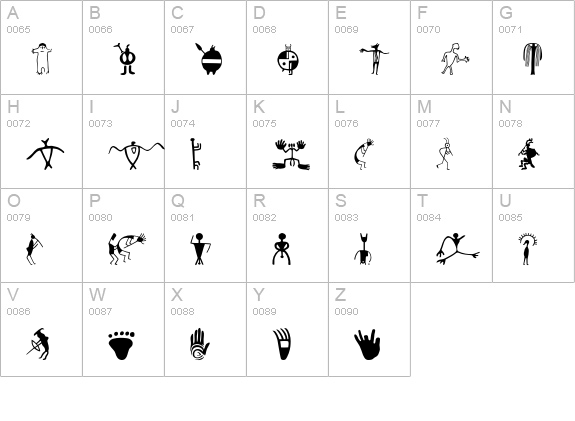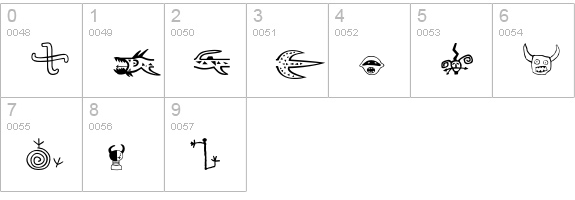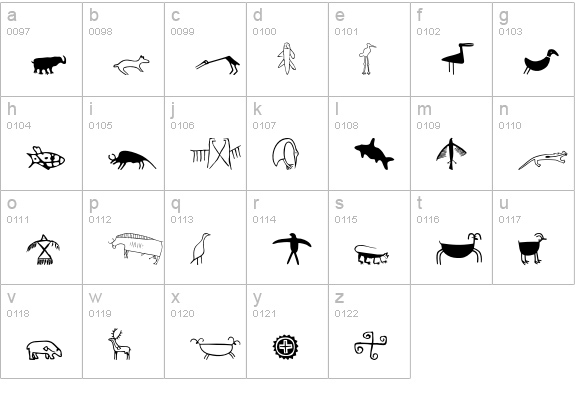
P22Petroglyphs-NAmerican Font Details
P22Petroglyphs-NAmerican font is a captivating and versatile typeface that pays homage to the rich cultural heritage of North American petroglyphs. This unique font captures the essence of ancient rock carvings, bringing them to life on the digital canvas. Each character is meticulously designed to reflect the intricate and symbolic artistry found in these historical artworks. With its bold and distinctive appearance, P22Petroglyphs-NAmerican font is perfect for a wide range of creative projects. Whether you're designing a logo, creating eye-catching headlines, or crafting visually stunning graphics, this font will add a touch of authenticity and character to your work. One of the most remarkable aspects of P22Petroglyphs-NAmerican font is that it is freely available to download at FontsMarket.com. This means that you can easily access and utilize this captivating typeface in your projects without any cost. The font's availability for free download makes it an excellent choice for both professional designers and enthusiasts who want to add a touch of history and cultural significance to their creations. The attention to detail in P22Petroglyphs-NAmerican font is truly remarkable. Each character has been meticulously crafted to preserve the integrity and authenticity of the original petroglyph designs. From the intricate lines and curves to the bold and powerful strokes, this font evokes a sense of wonder and fascination. It effortlessly combines the ancient art with modern technology, creating a visual experience that is both captivating and engaging. Whether you're designing a website, creating a poster, or crafting a presentation, P22Petroglyphs-NAmerican font will elevate your work to new heights. Its unique and expressive style will make your designs stand out from the crowd, leaving a lasting impression on your audience. Embrace the rich cultural heritage of North American petroglyphs with P22Petroglyphs-NAmerican font. Download it for free at FontsMarket.com and unlock a world of creativity and inspiration. Let the ancient symbols and artistry guide your designs, and create something truly extraordinary with this remarkable typeface.